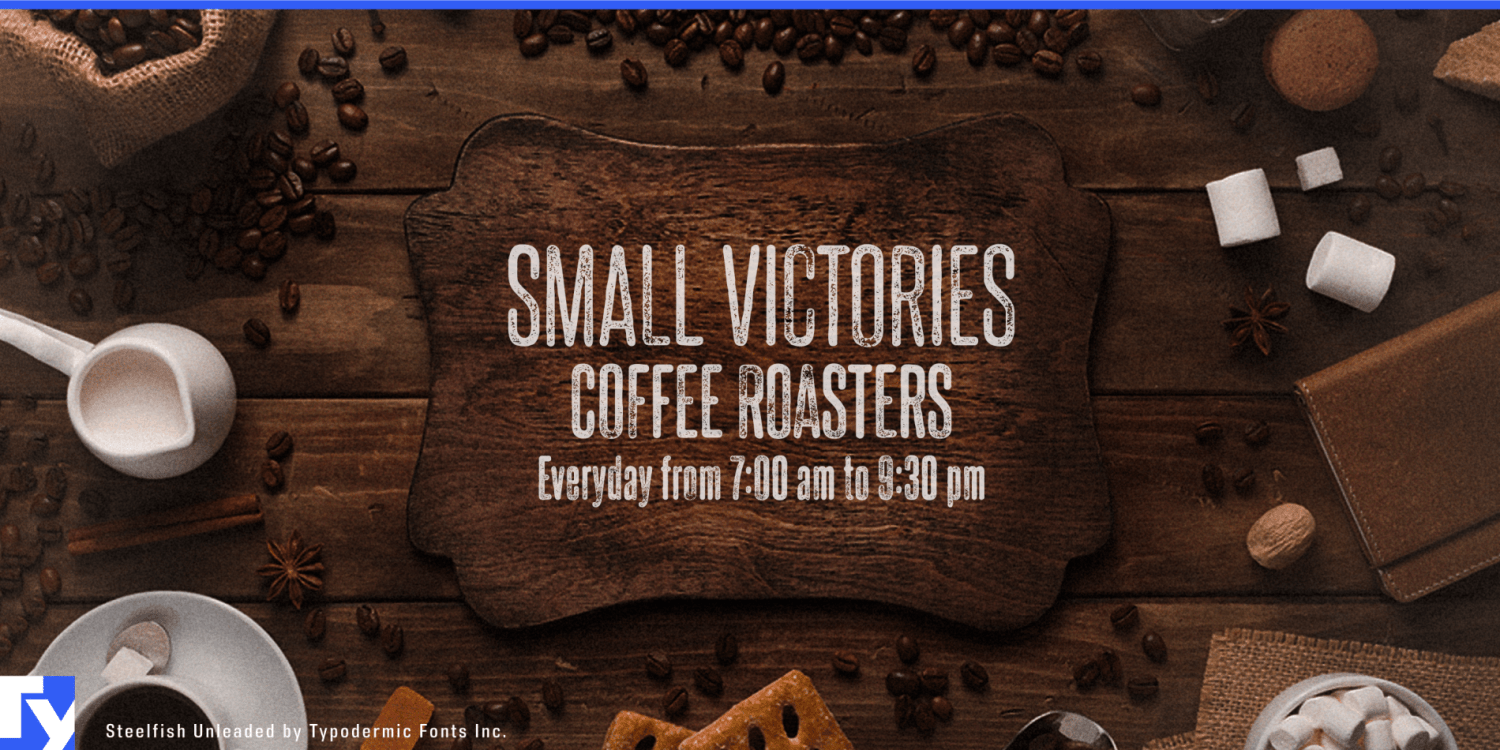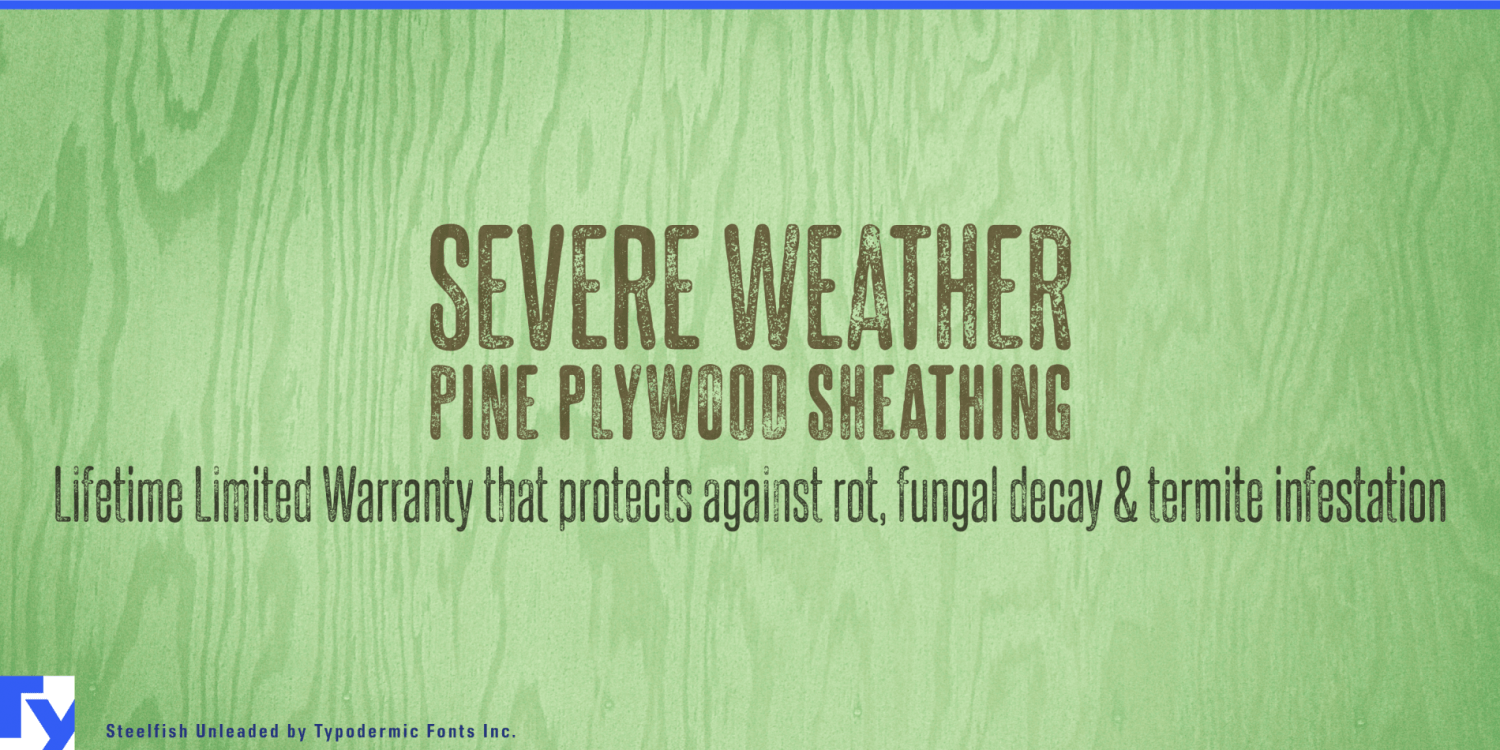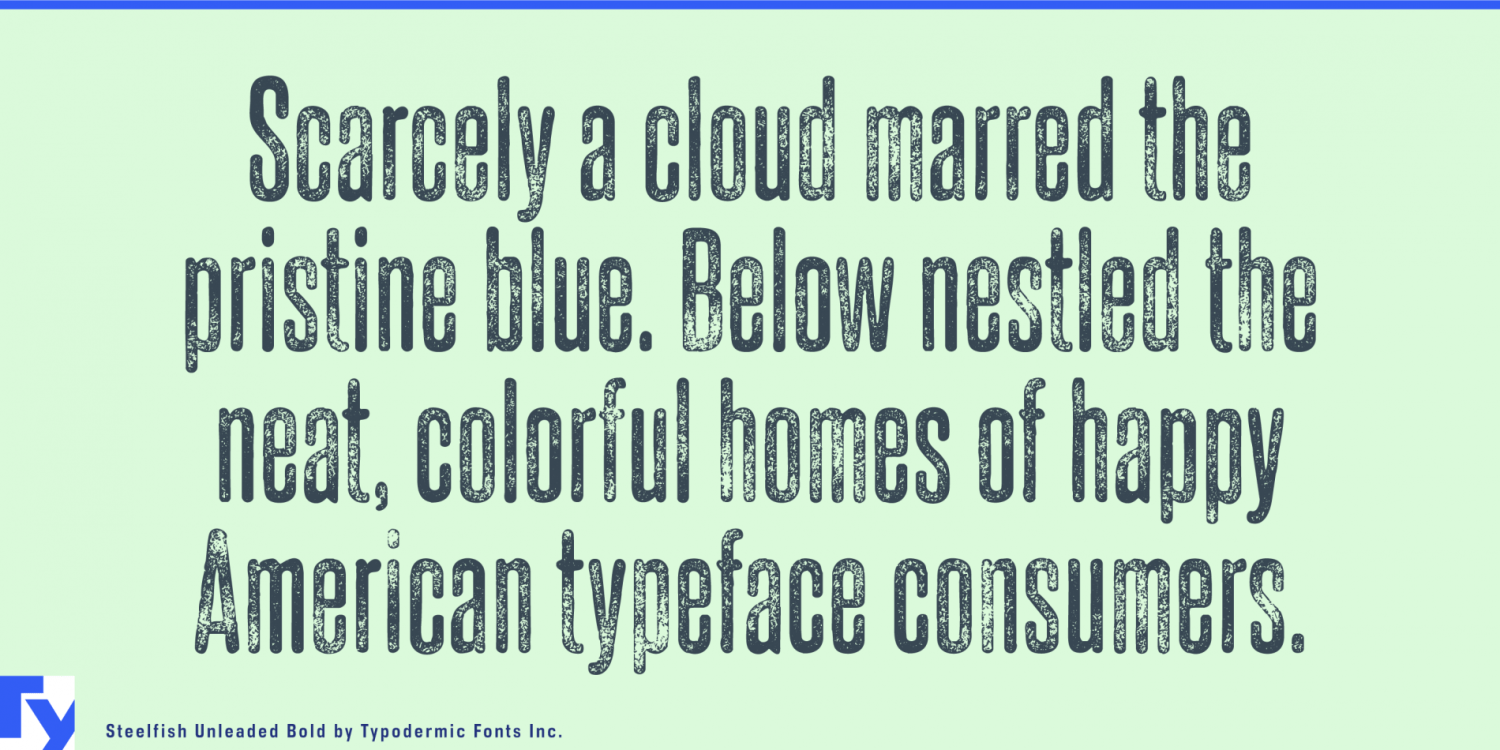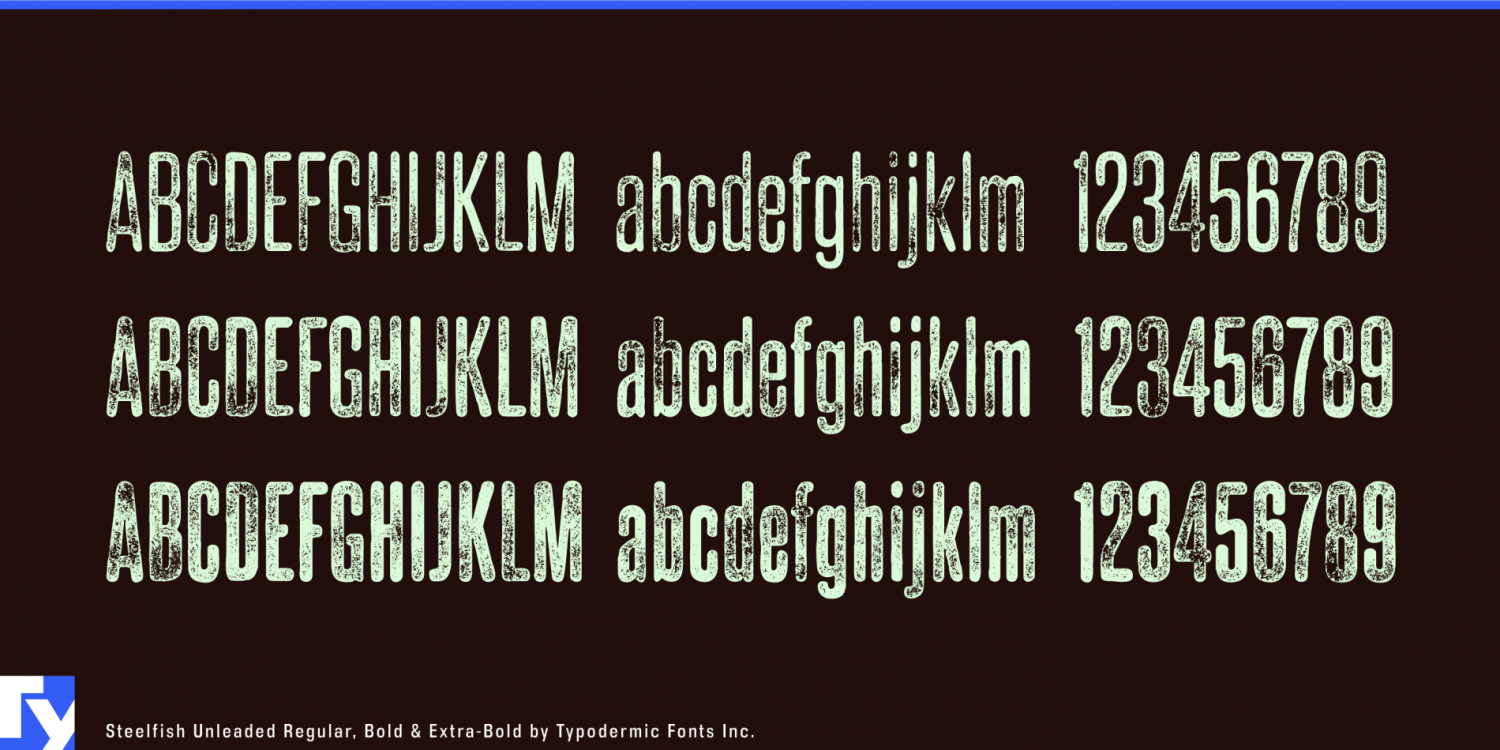
About Steelfish Unleaded
Steelfish Unleaded isn’t just a typeface—it’s a typographic revolution, stripping away the frills and leaving behind nothing but pure, unadulterated letterforms. This is the bare-knuckle boxer of the Steelfish family, ready to deliver…